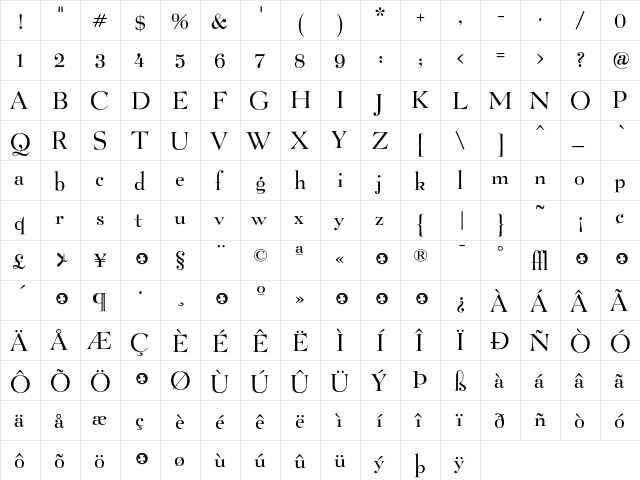
Belucian Book
Design Context for Belucian Typeface
Belucian is a composed and adaptable typeface that performs quietly and consistently across a wide range of design contexts.
Pro Tip: Use Belucian in both headline and body roles to test its range before committing to a single application.